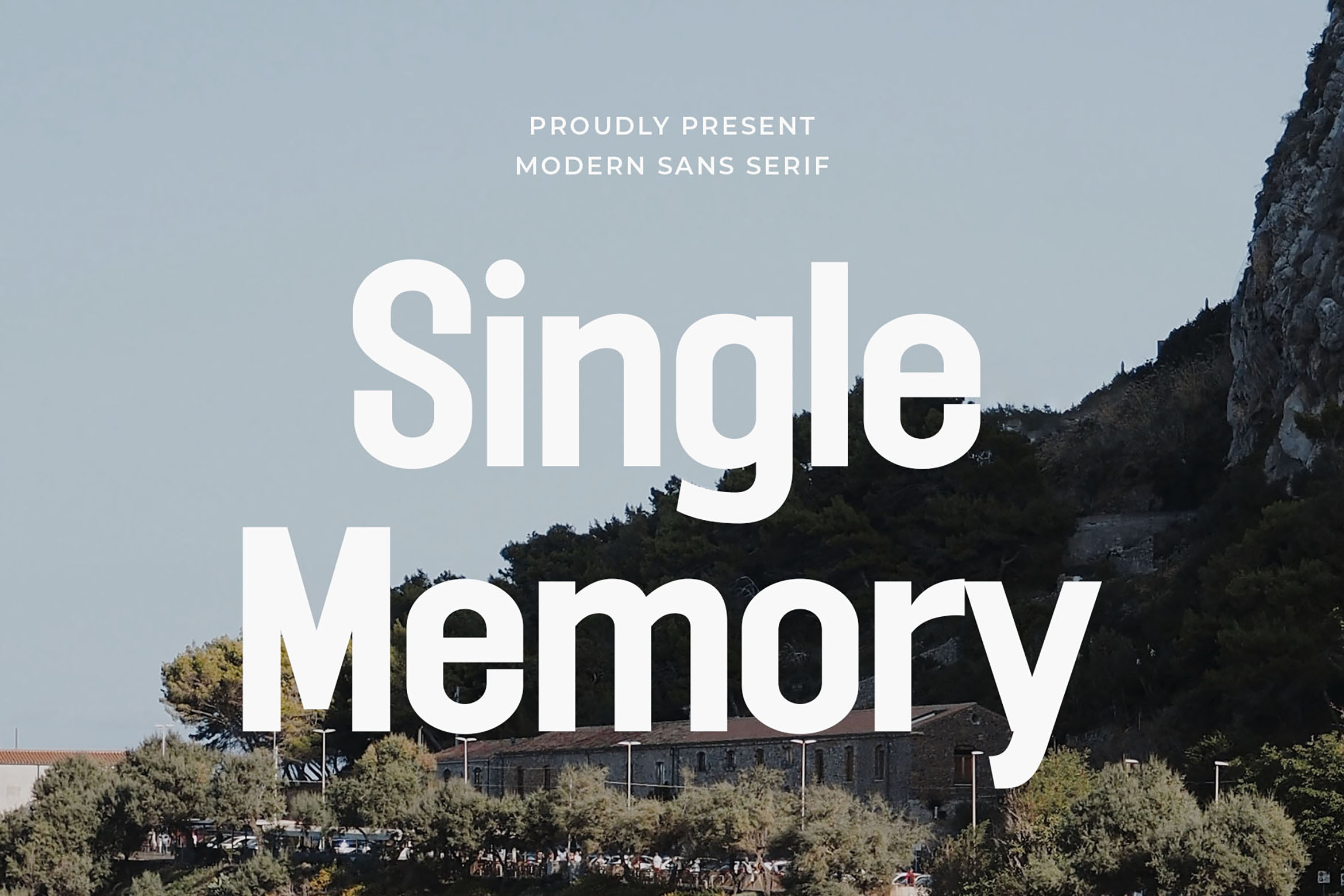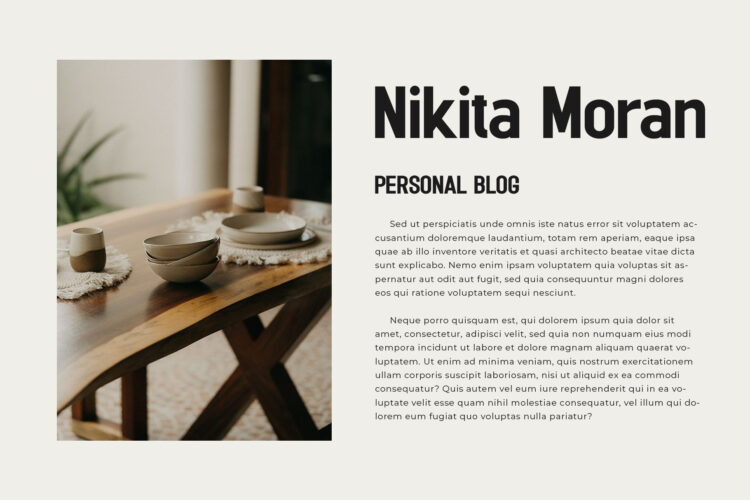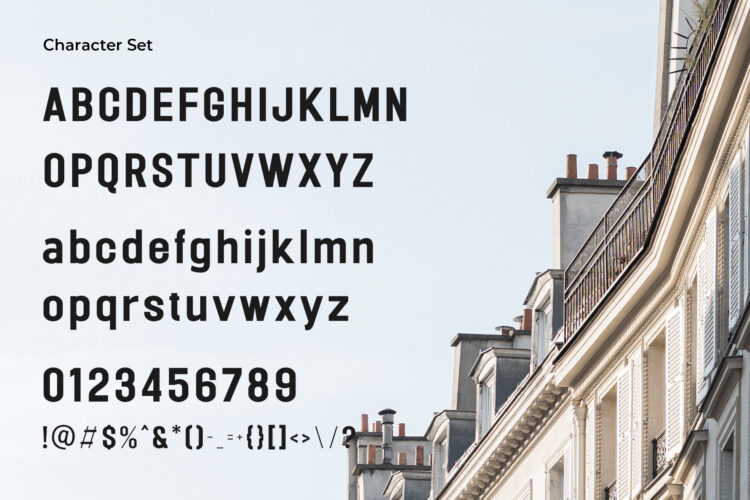
Introducing our new Single Memory, modern sans serif font with elegant style this is perfect for branding, logos, invitation, magazines, product packaging and more.
Single Memory – Modern Sans Serif
Single Memory - Modern Sans Serif
Single Memory – Modern Sans Serif